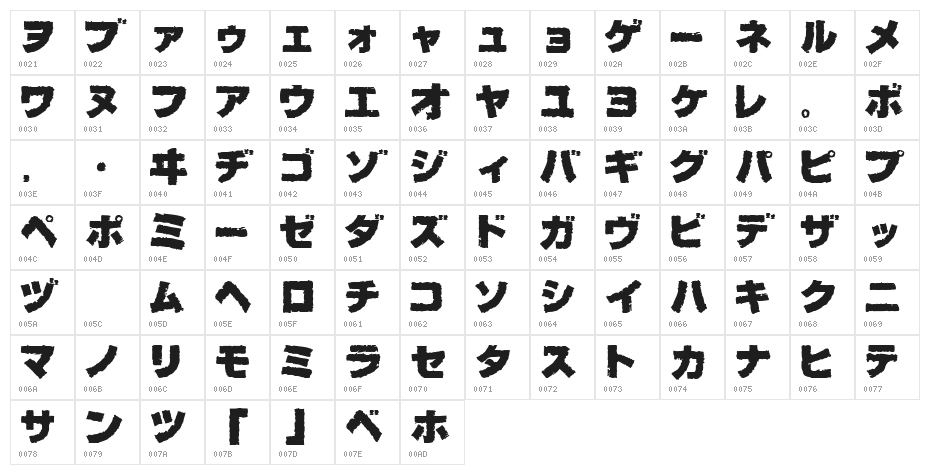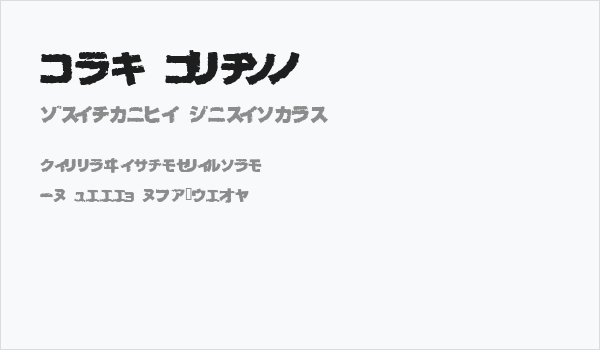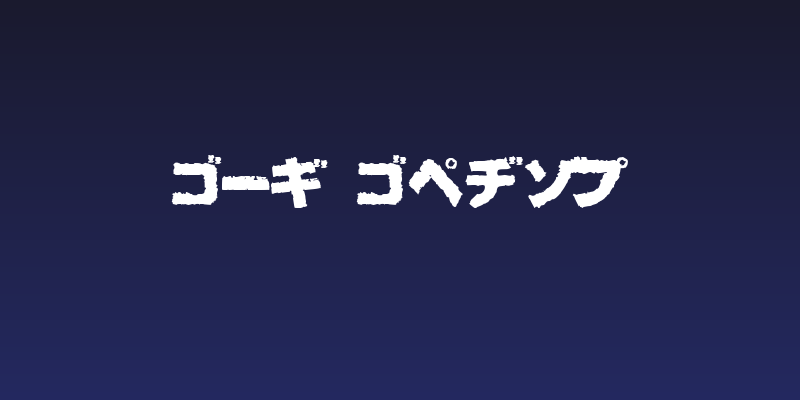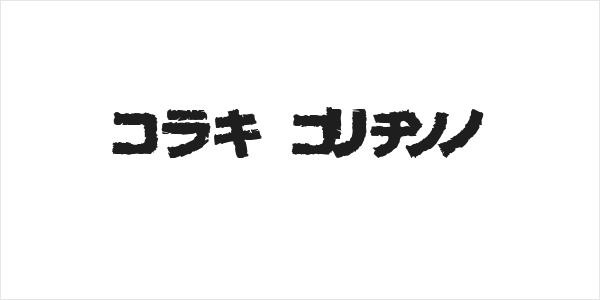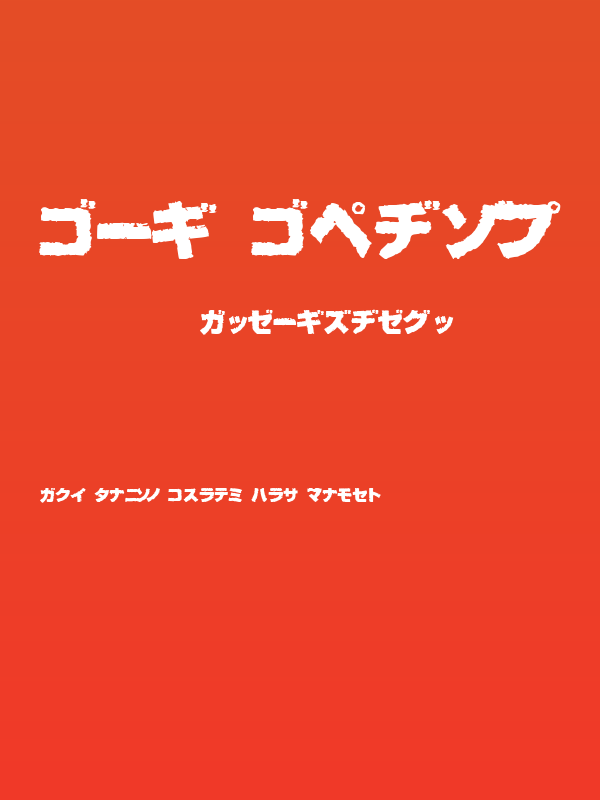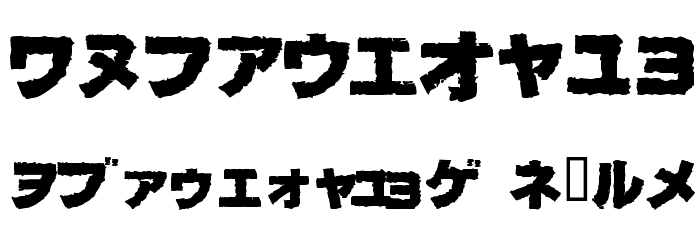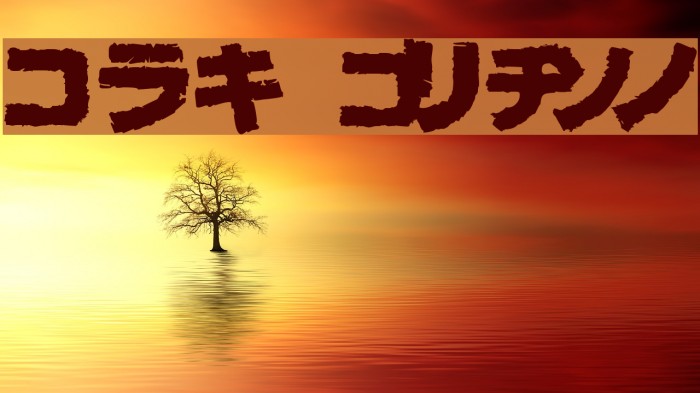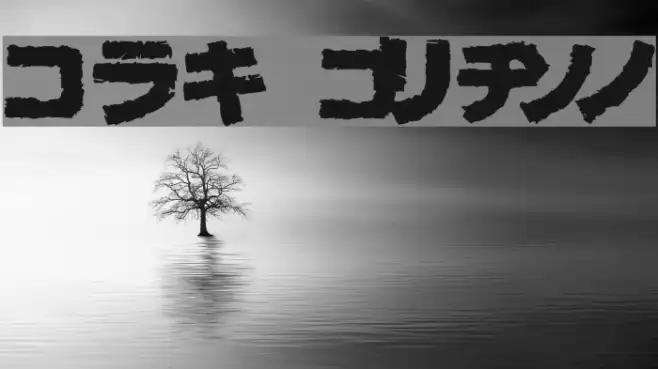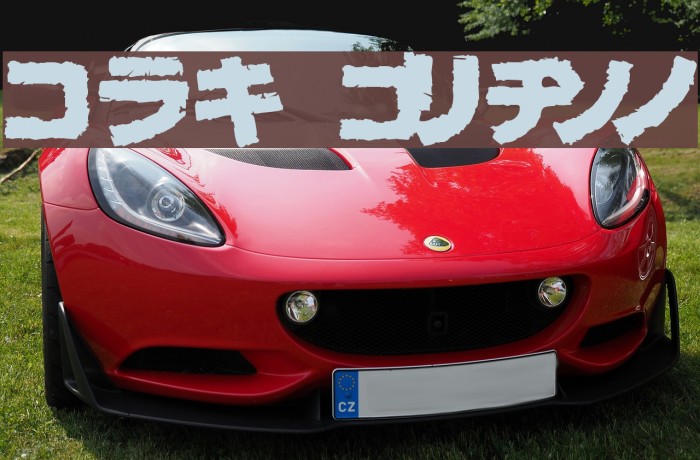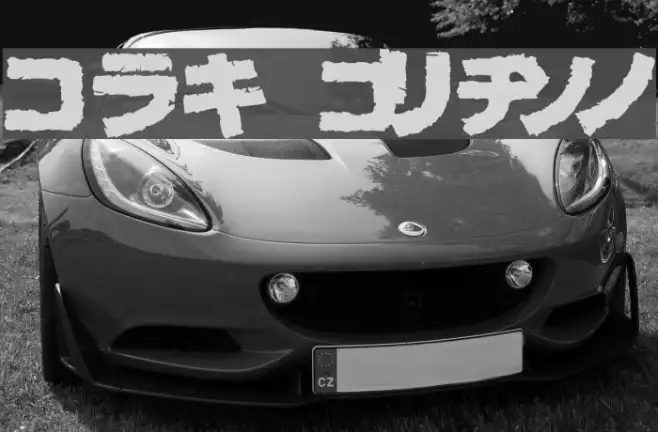
bog Black Font
bog Black Description
This font features bold, brush-like strokes that give it a dynamic and energetic appearance. The characters are slightly irregular, adding a handcrafted feel that is both artistic and expressive. The boldness of the strokes ensures high visibility, making it suitable for attention-grabbing designs. The texture within each character adds depth and interest, enhancing its visual appeal. This style is reminiscent of traditional calligraphy but with a modern twist, making it versatile for various creative applications.
| Proposed Projects | Ideal for posters, branding, and creative projects that require a bold and artistic touch. |